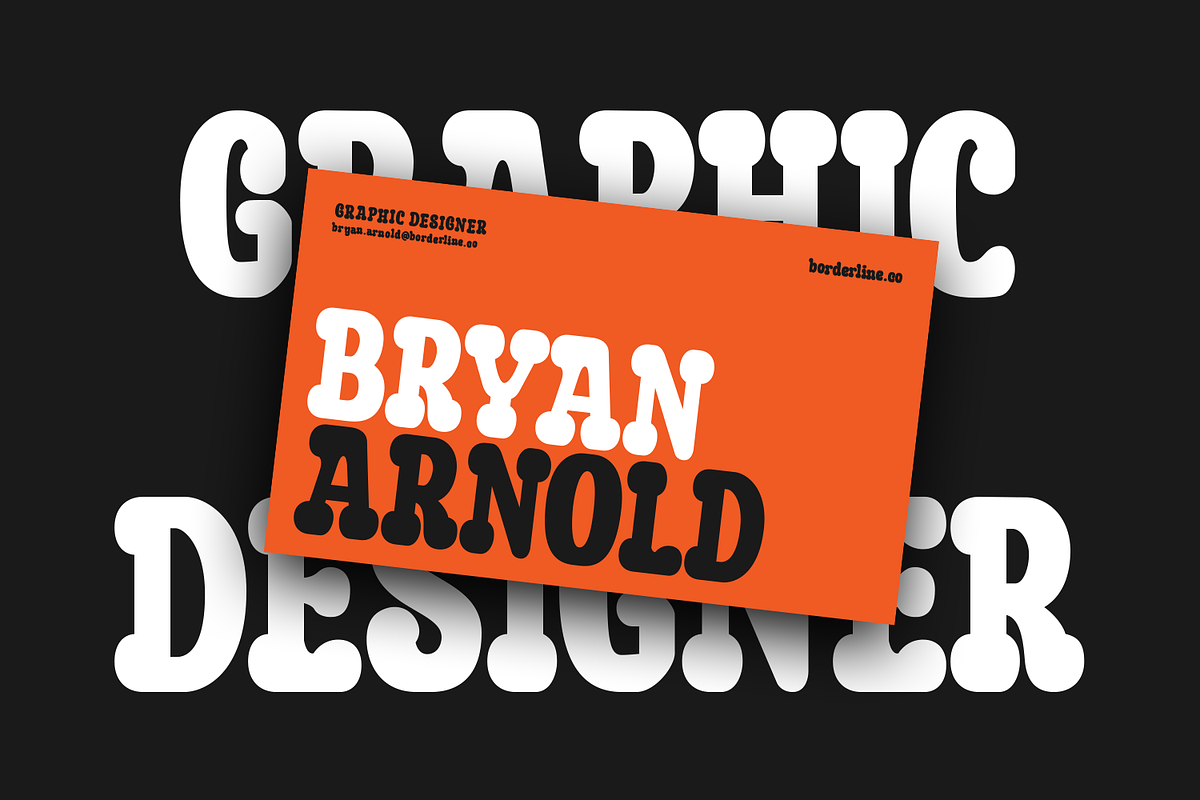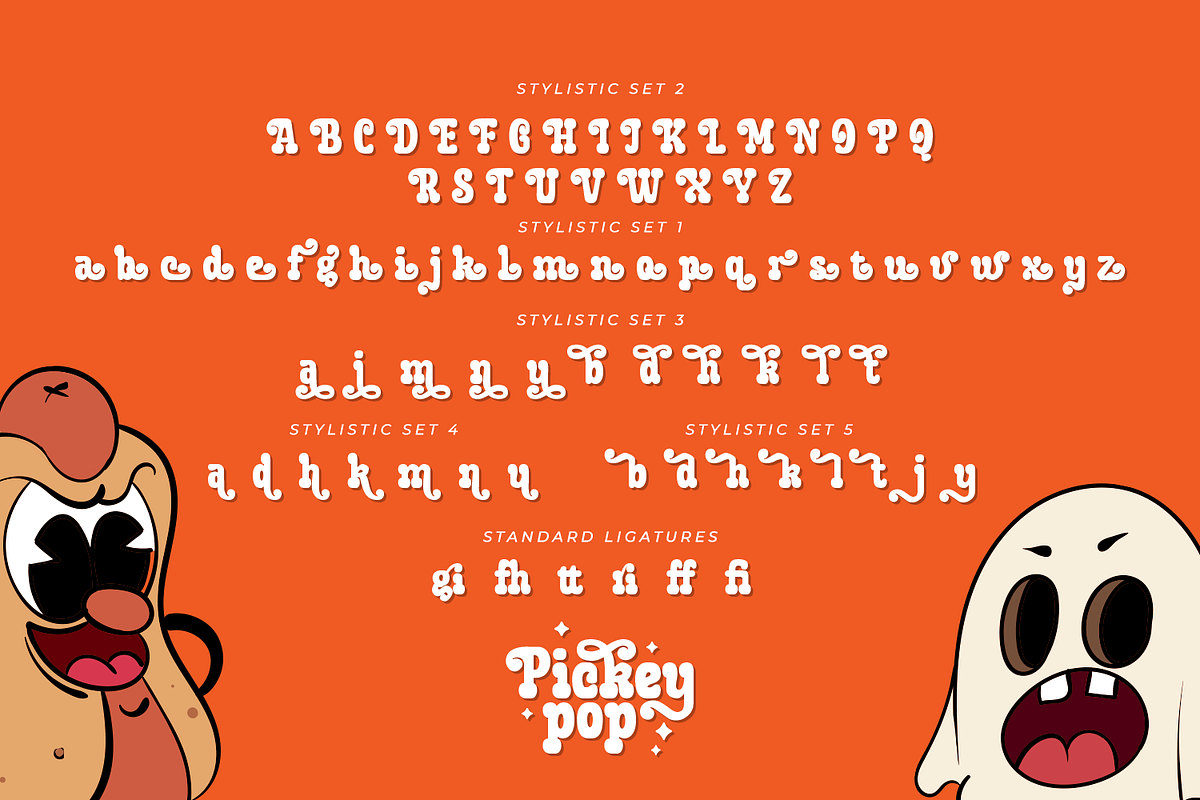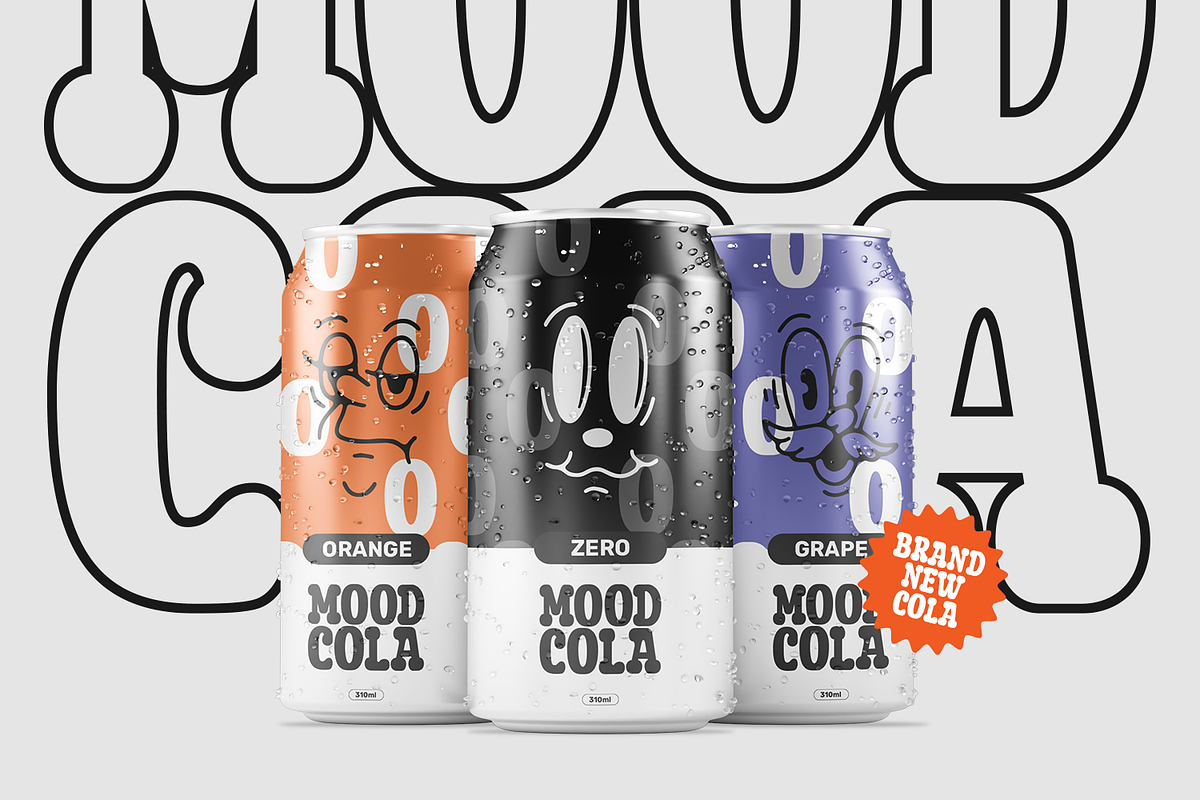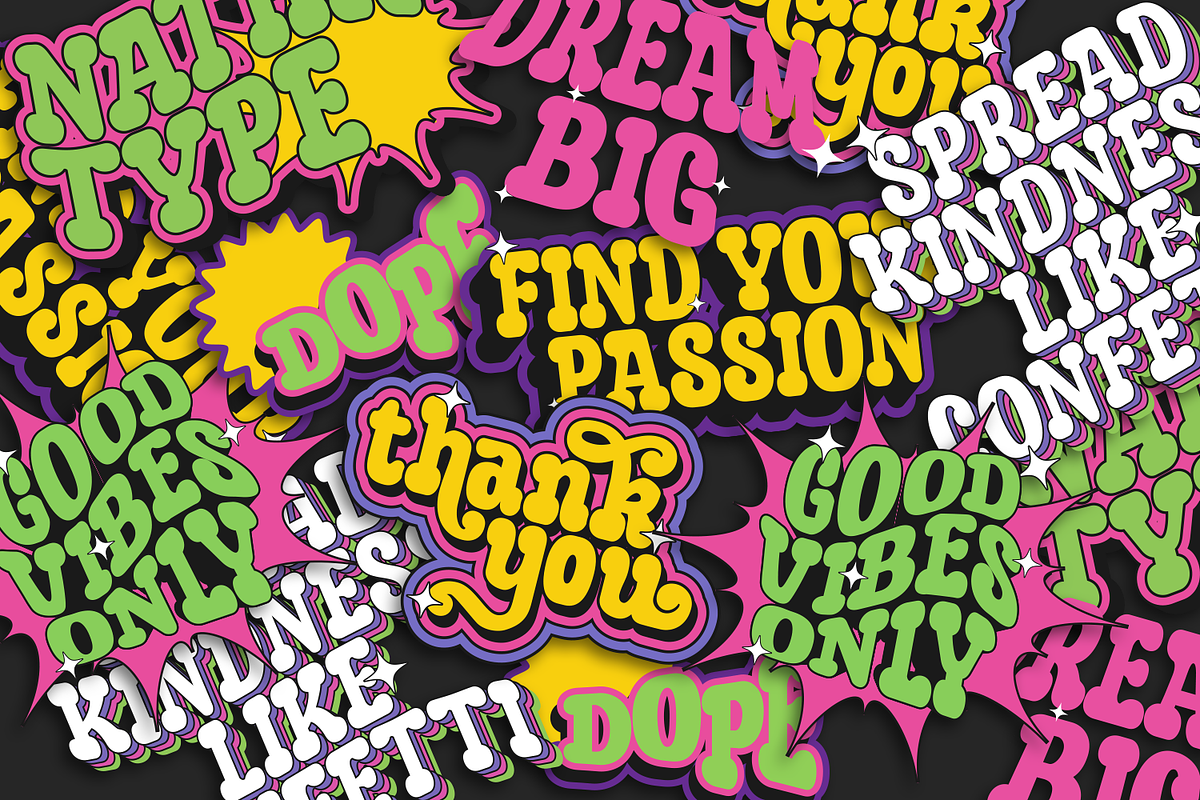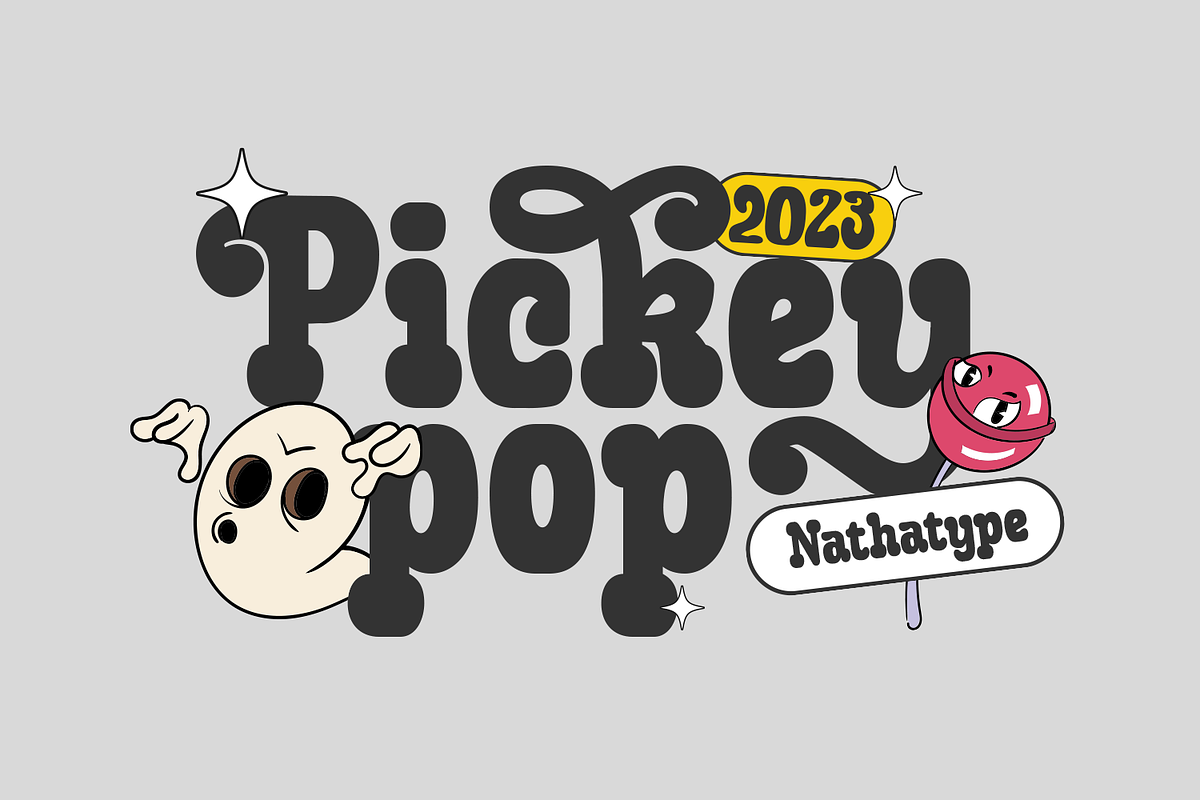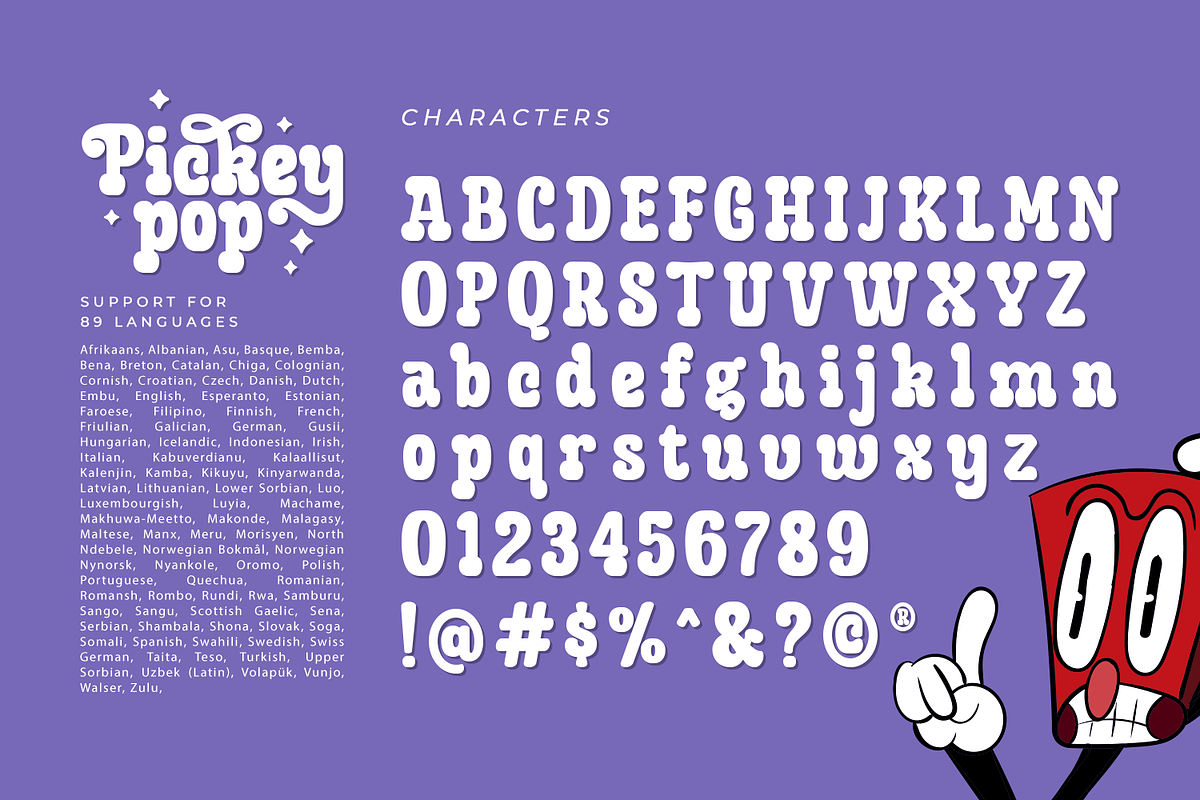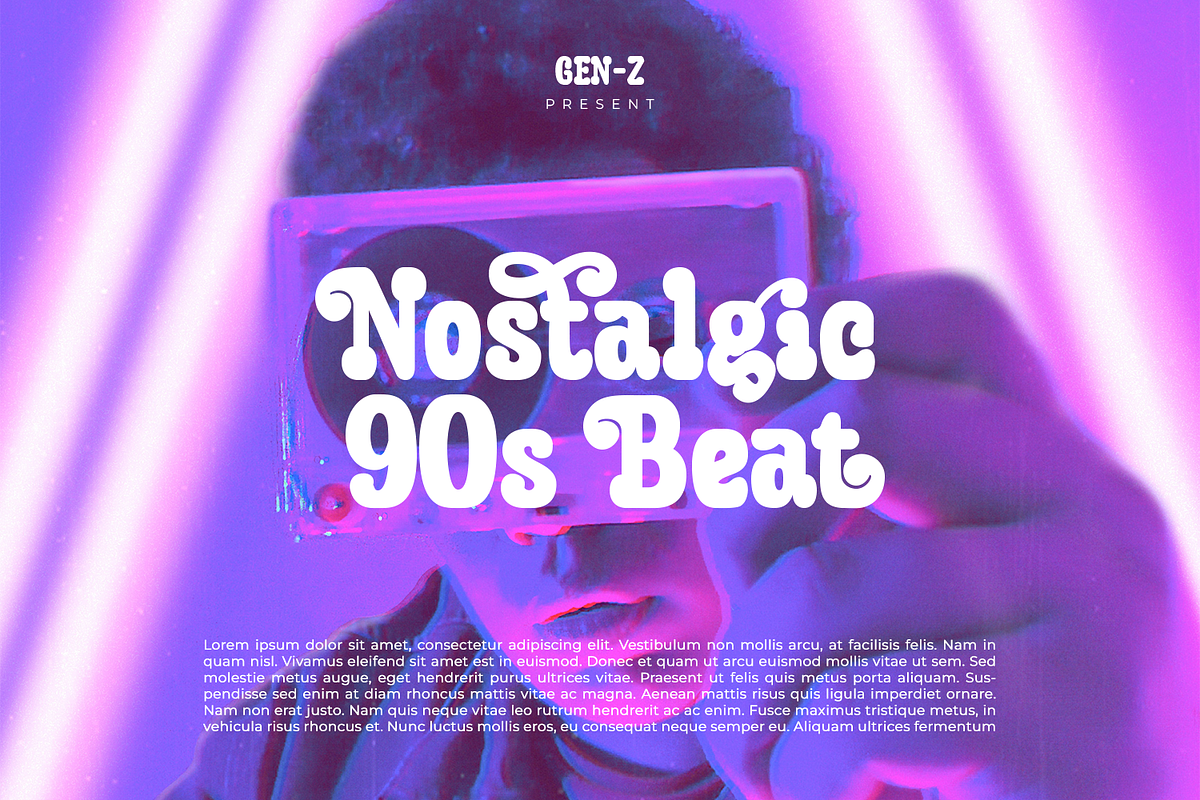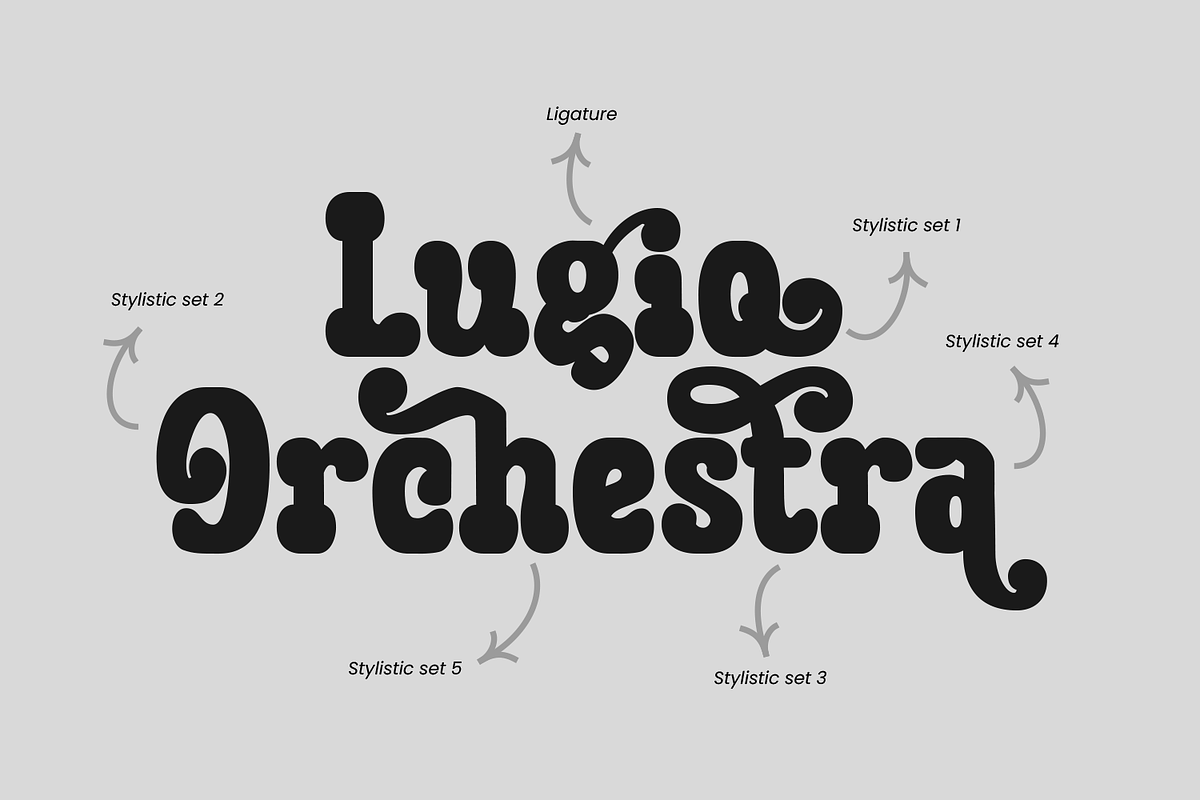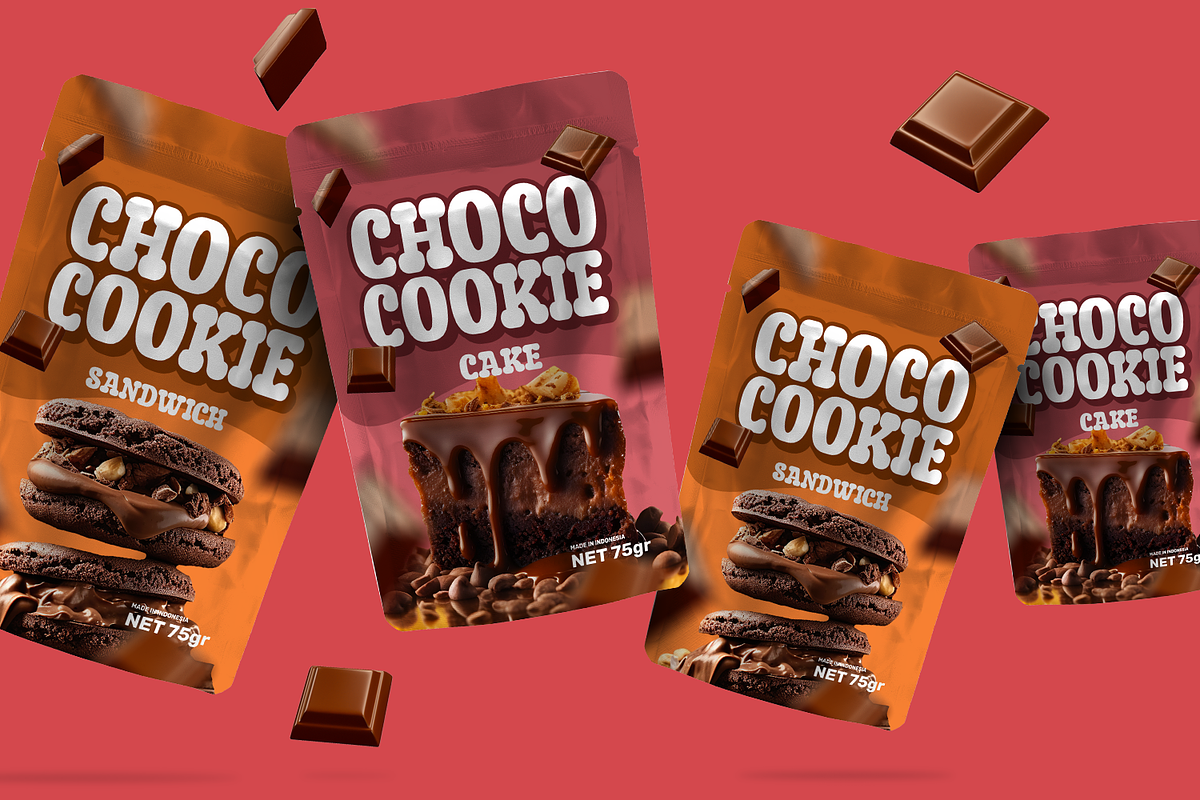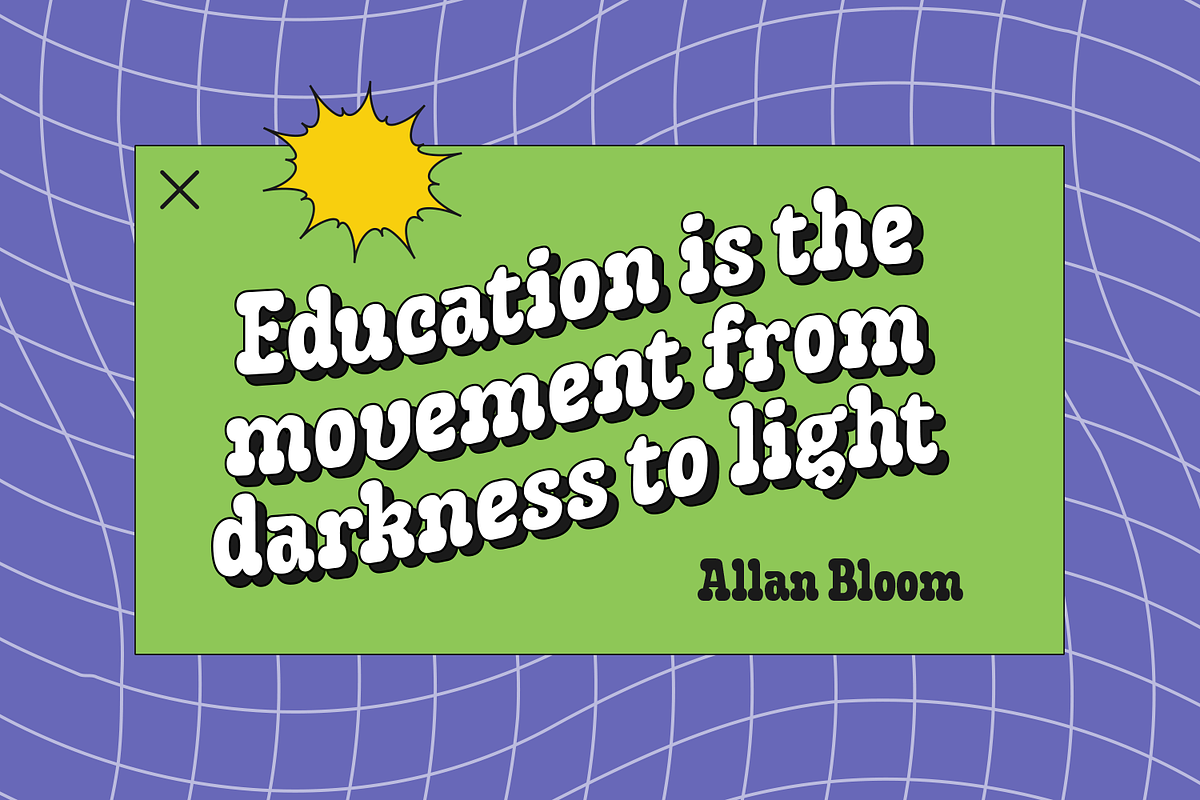
Pickey Pop
Pickey Pop is a delightful display font that combines a thick weight, low contrast letters, and charming swinging endings. With its playful and bold design, this typeface brings a sense of joy and vibrancy to any creative project. The thick weight of this font adds a strong and confident presence to each letter. The boldness of the strokes creates visual impact and ensures legibility even at smaller sizes. This display font demands attention and stands out effortlessly in any design composition. In contrast to its bold weight, Pickey Pop features low contrast letters. This design choice gives the font a sense of solidity and consistency. The uniform strokes contribute to a clean and contemporary appearance, making it a versatile choice for a wide range of design applications. What makes this font truly special are the swinging endings found in select letters. These whimsical details add a touch of playful movement and uniqueness to the font. The swinging letter endings bring a sense of rhythm and energy, infusing your designs with a joyful and dynamic quality. For the best legibility you can use it in the bigger text. Enjoy the available features here.
- Stylistic Sets
Pickey Pop fits in headlines, logos, attention-grabbing titles, product packaging, branding materials, editorial layouts and website headers. Find out more ways to use this font by taking a look at the font preview.